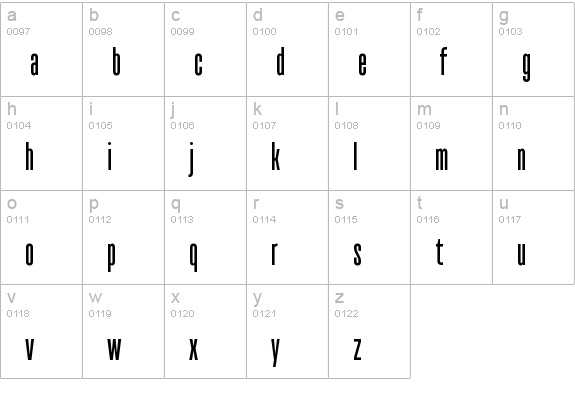
TT Bluescreens Bold is a strong, high-contrast variant in the TT typeface family \xE2\x80\x94 well suited to headlines, attention-grabbing titles, and strong calls-to-action.
TT Bluescreens Bold font is a striking and modern typeface that will make a bold statement in any design project. With its clean lines and sharp edges, this font exudes a sense of confidence and strength. Perfect for headlines, logos, posters, and more, TT Bluescreens Bold is sure to catch the eye and leave a lasting impression. The best part? TT Bluescreens Bold is available for free download at FontsMarket.com. Don't miss out on this opportunity to enhance your designs with this powerful and versatile font. Download TT Bluescreens Bold today and take your projects to the next level!